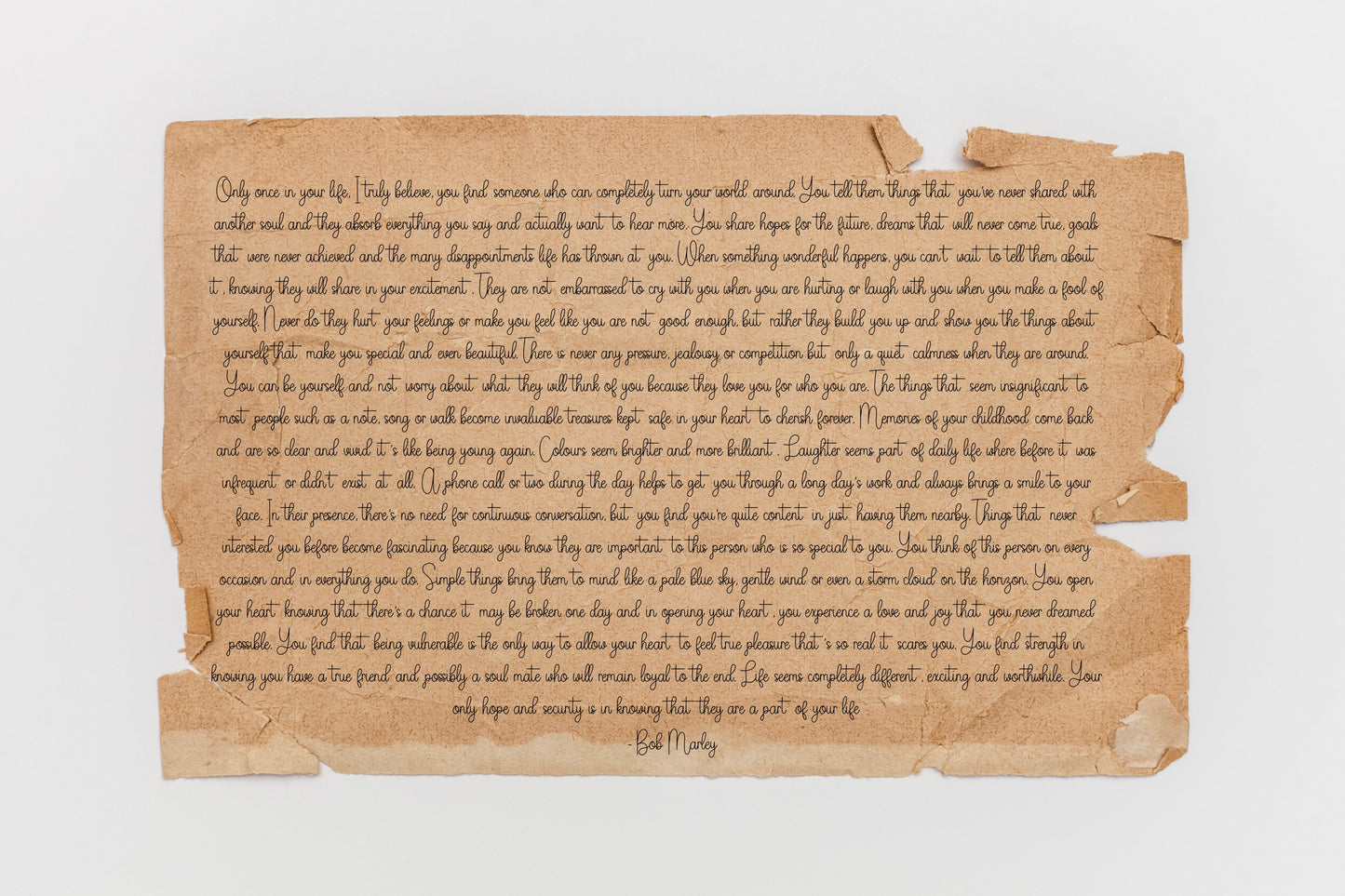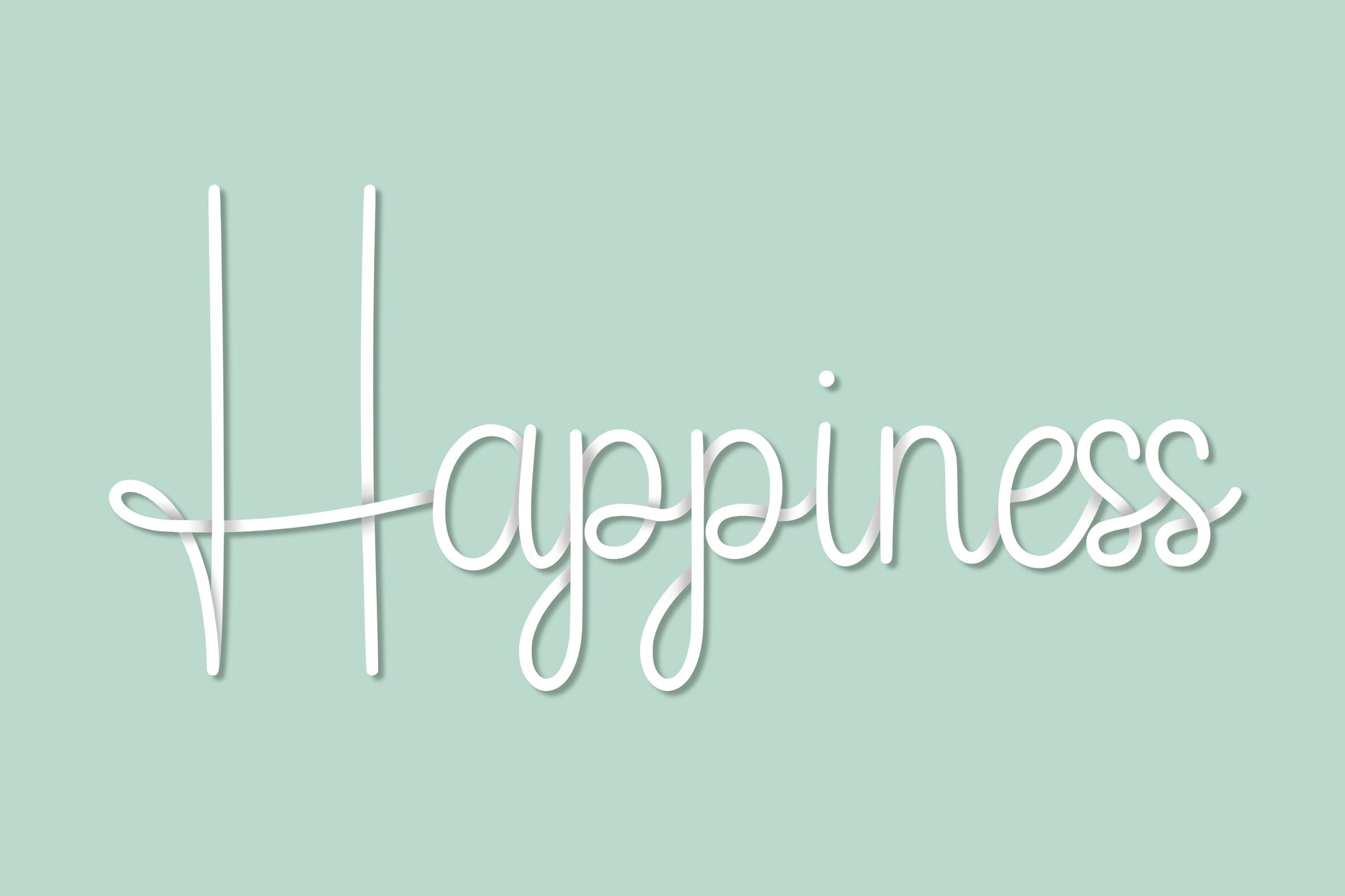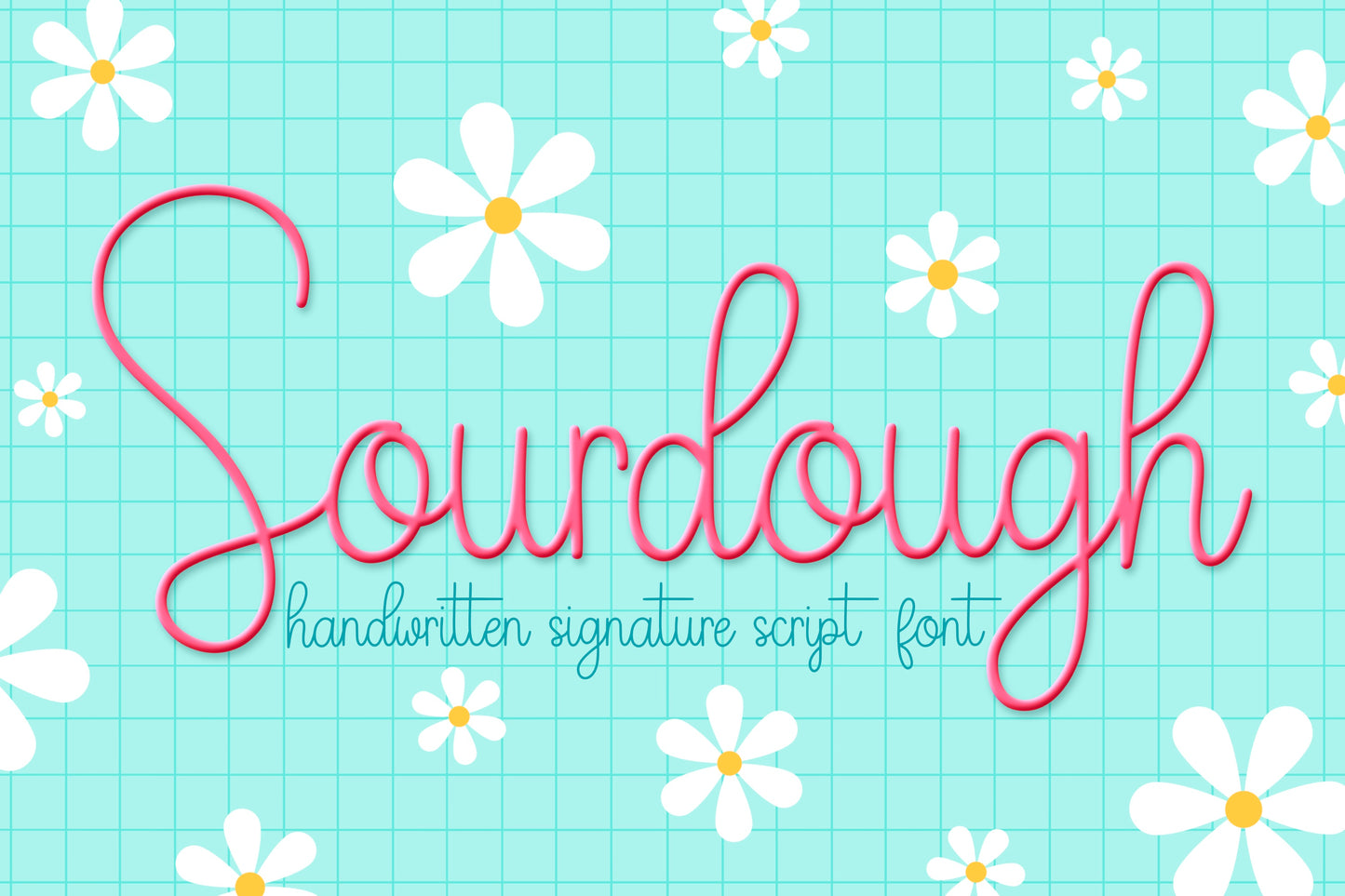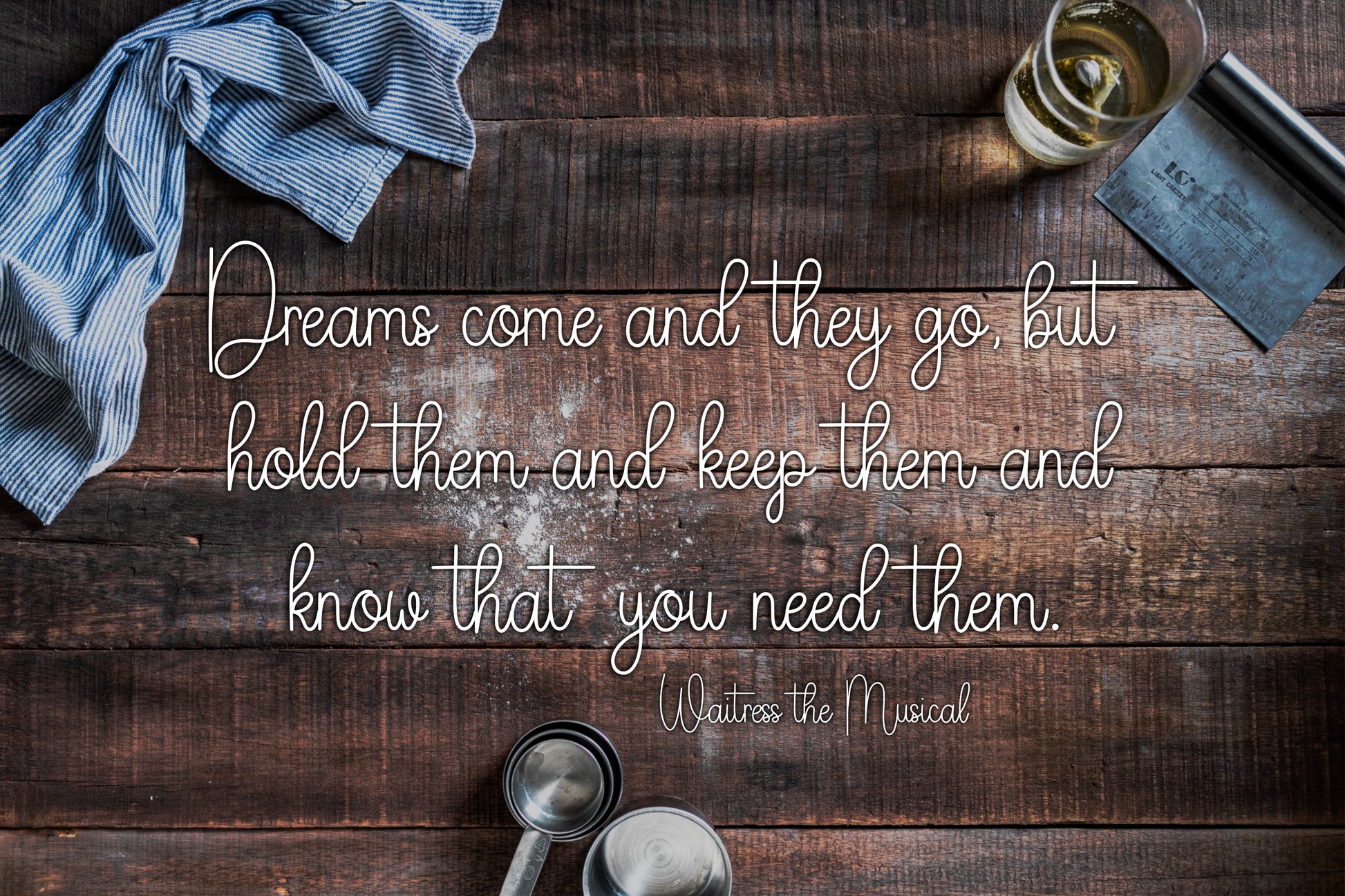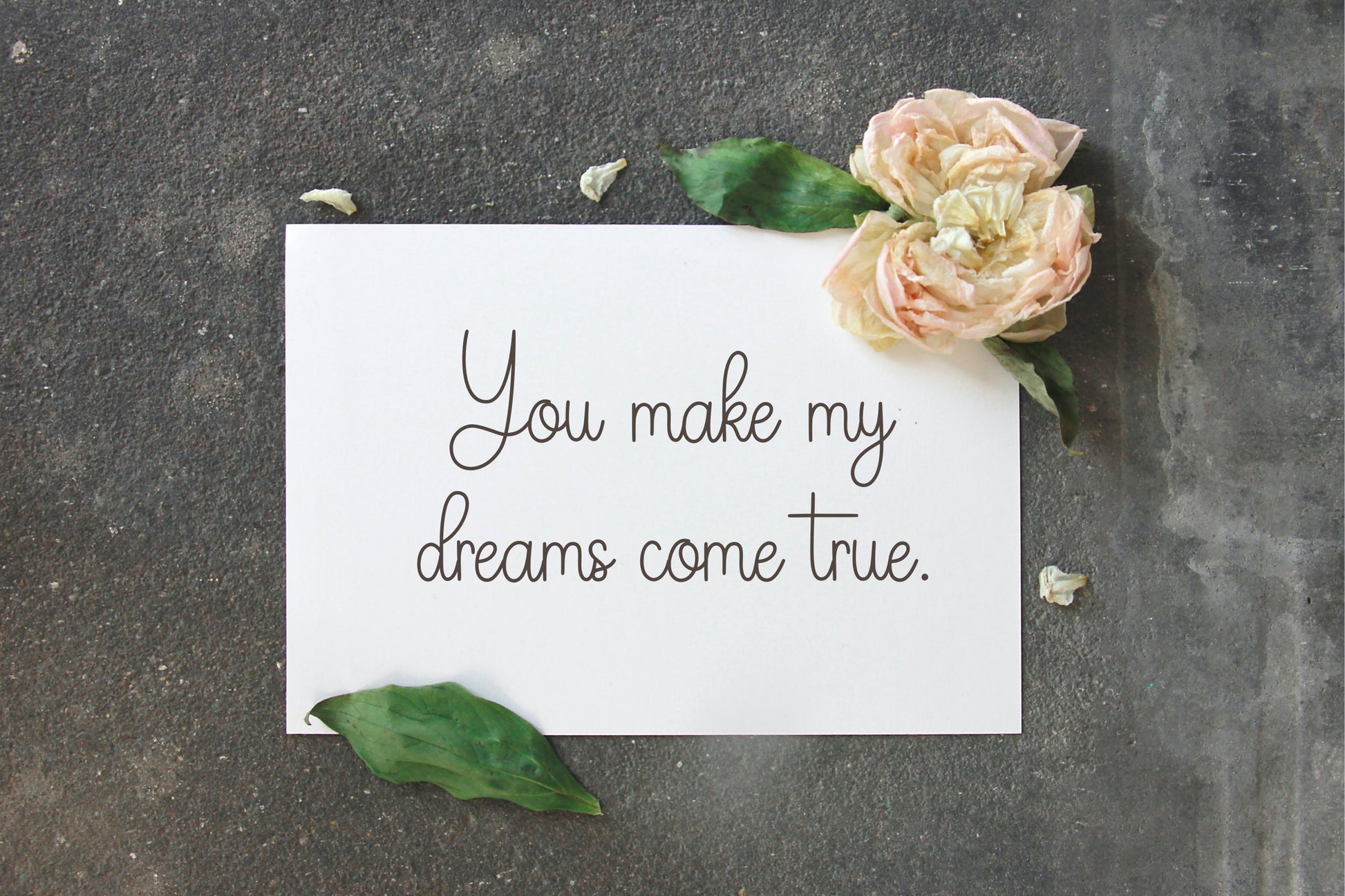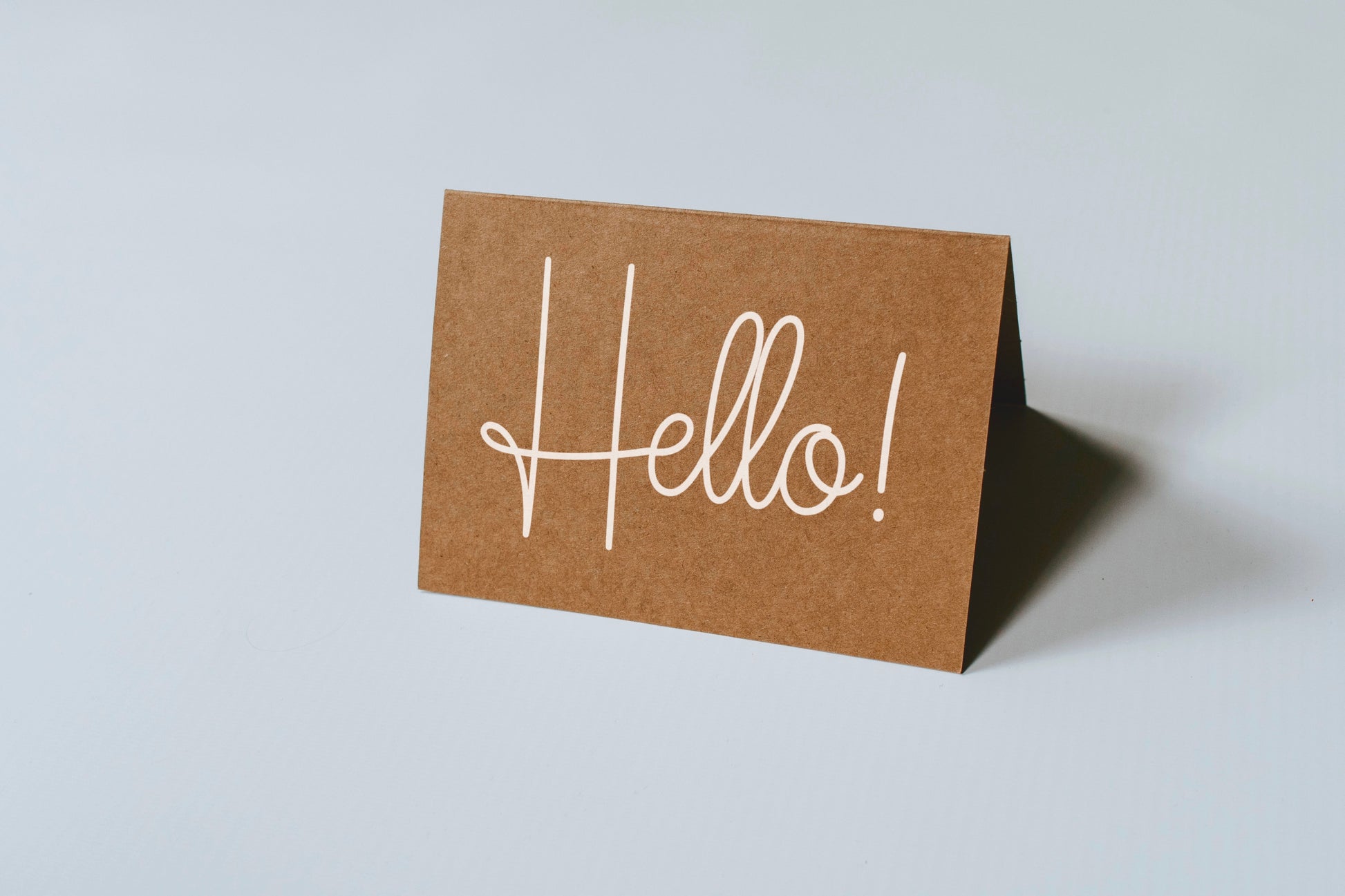
Sourdough Handwritten Script Font
This is my Sourdough handwritten/hand drawn font. This unique, signature monoline font will add an elegant, fun, handmade touch to your design! This versatile font is great for formal and elegant designs, but is also great for casual, informal occasions too!